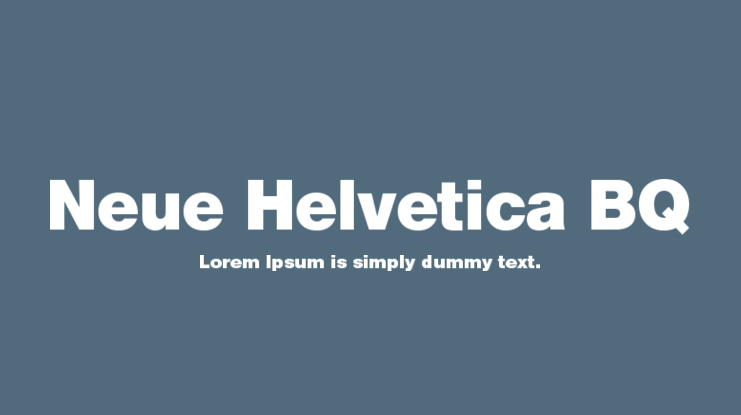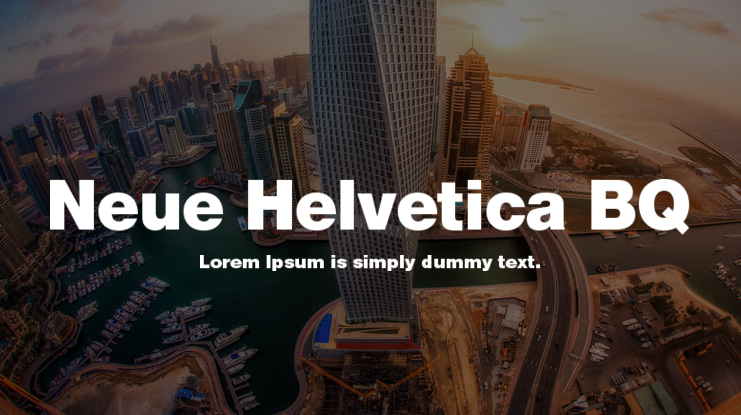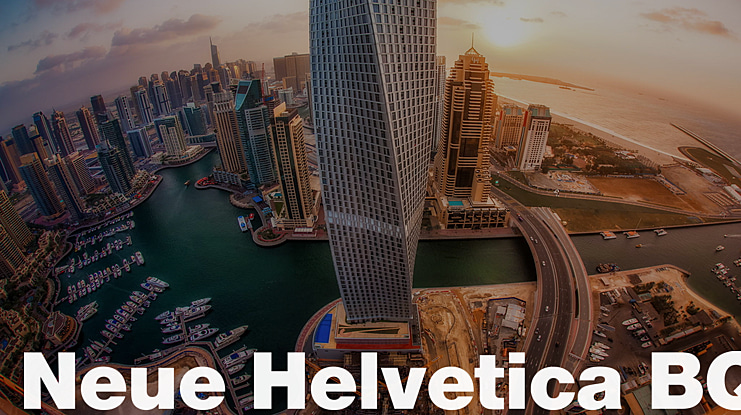
Neue Helvetica BQ Font Family
This typeface, designed by Max Miedinger and other project members at the Haas’sche Schriftgiesserei, has become one of the most famous and popular typefaces in the world, thanks to the marketing strategy of Stempel and Linotype. It forms an integral part of many printers and operating systems. The original letterforms of Helvetica had to be modified for the Linotype system. Over the years, Helvetica was expanded to include many different weights, but these were not coordinated with each other.
In 1983, D. Stempel AG redesigned and digitized the “Neue Helvetica” typeface for Linotype and made it a self-contained font family. Today, this family consists of 51 different font weights.
The original numbering system for the weight designations came from the numbering of the Univers font. The basic font weight, “Helvetica roman”, is at the heart of this numbering system. The designation “55 roman” forms the central point. The first figure of the number describes the stroke thickness: 25 ultra light to 95 extra black. The second figure gives information on the width and orientation of the font: Helvetica 53 extended to Helvetica 57 condensed.
The Neue Helvetica sets new standards in terms of its form and number of variants. It is the quintessential sans serif font, timeless and neutral, and can be used for all types of communication.